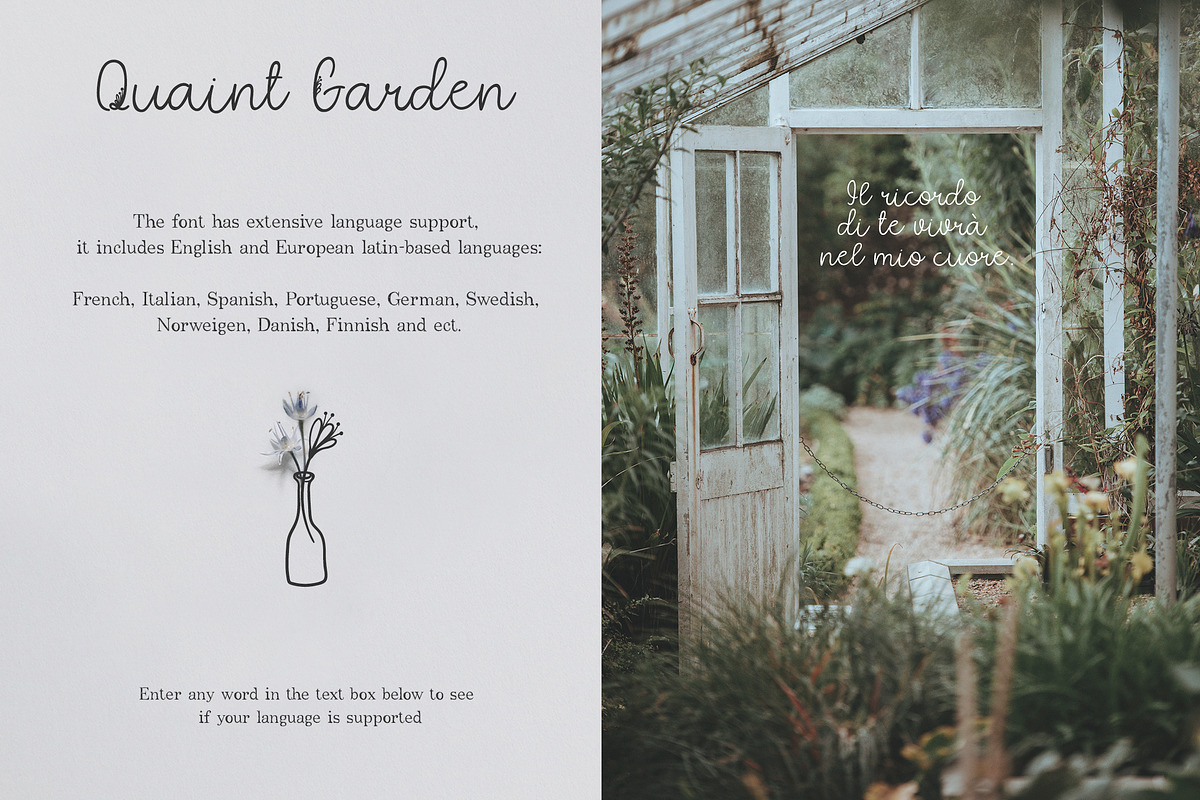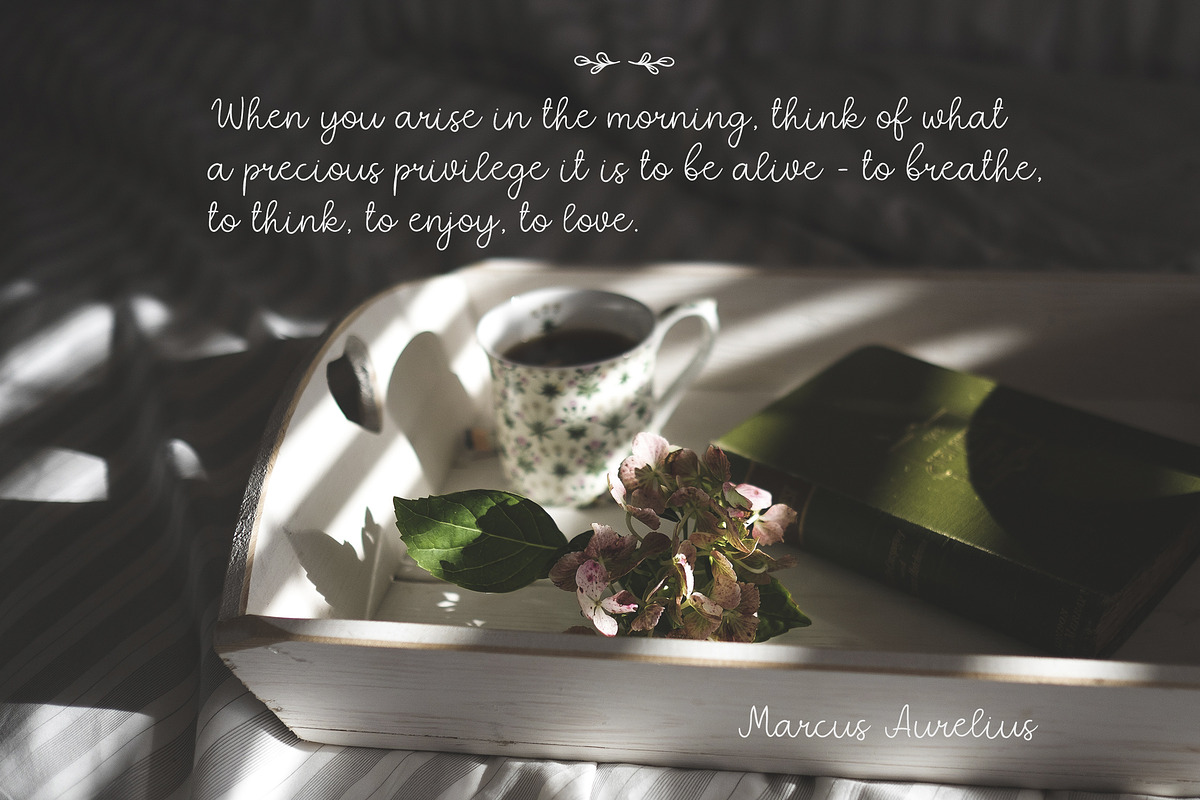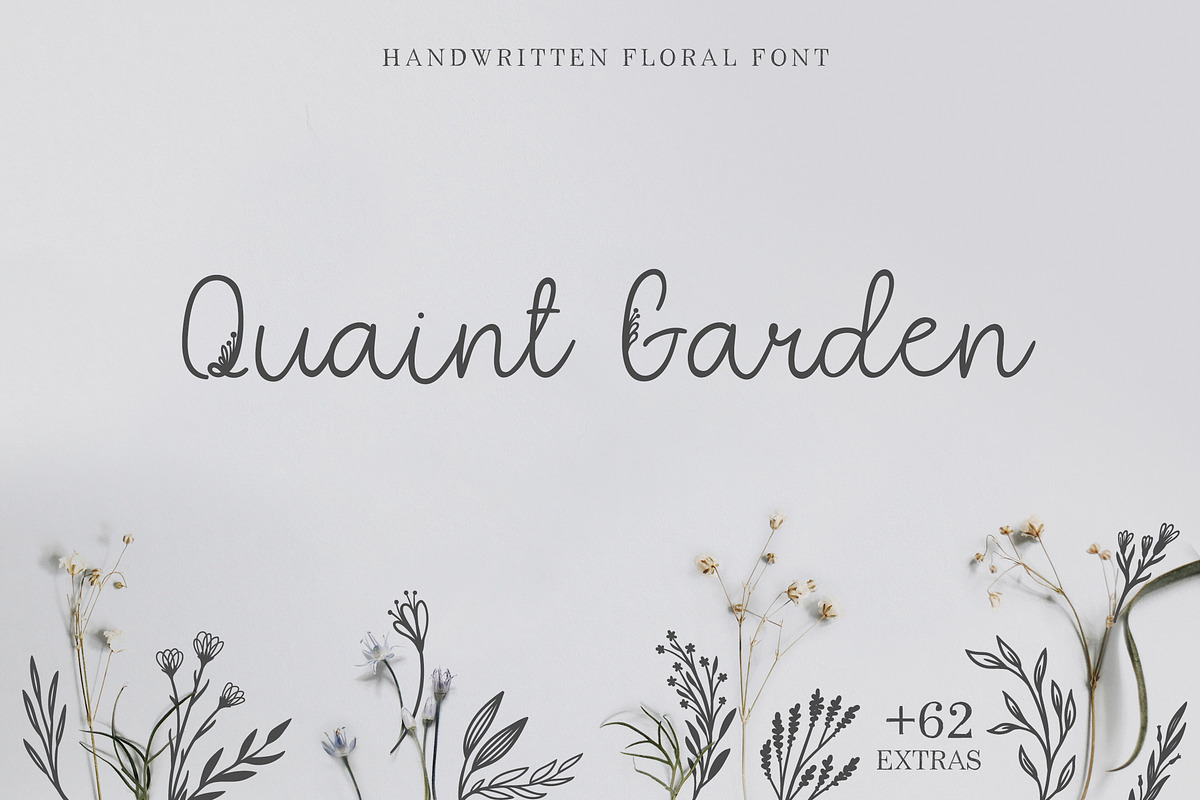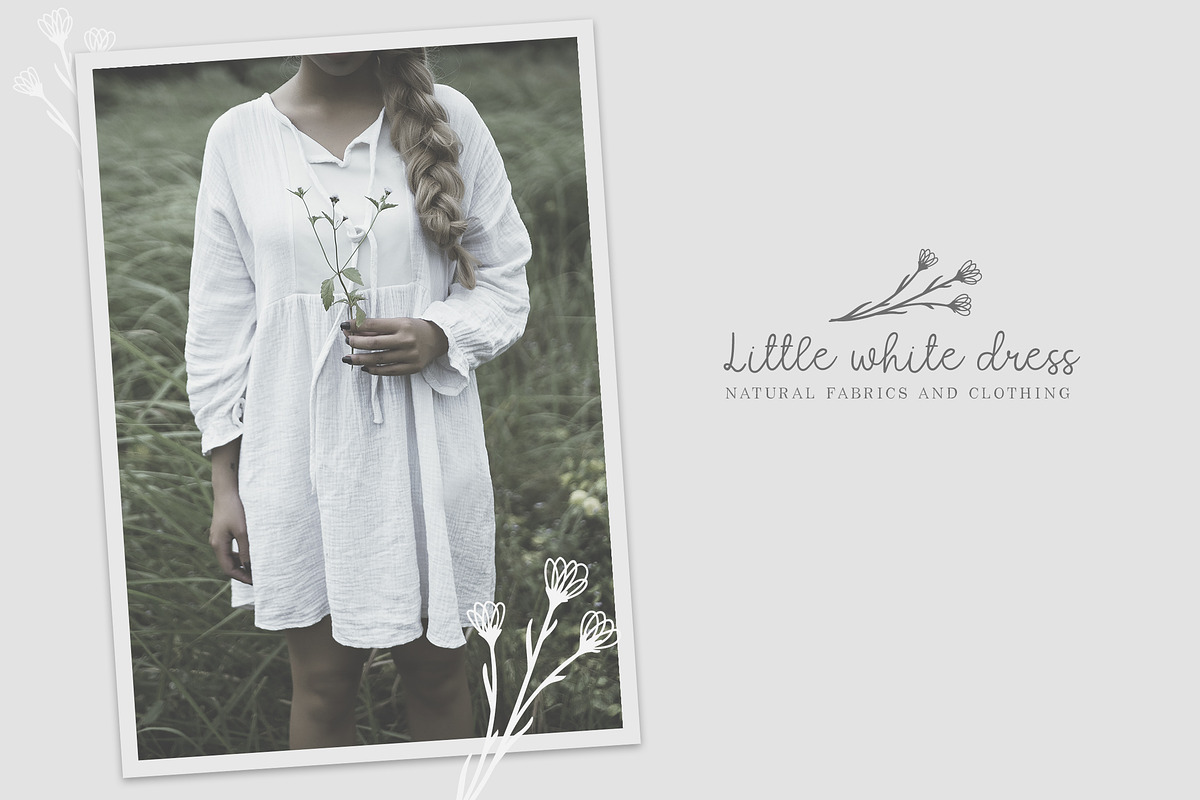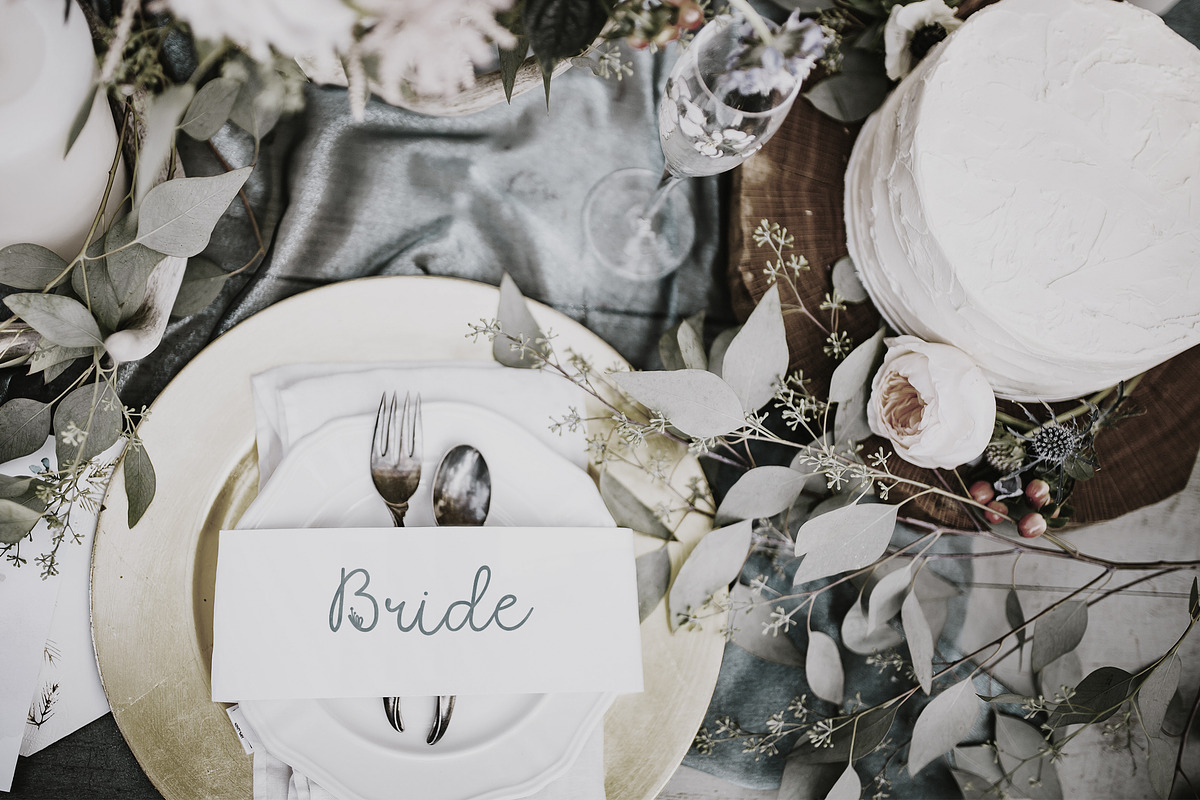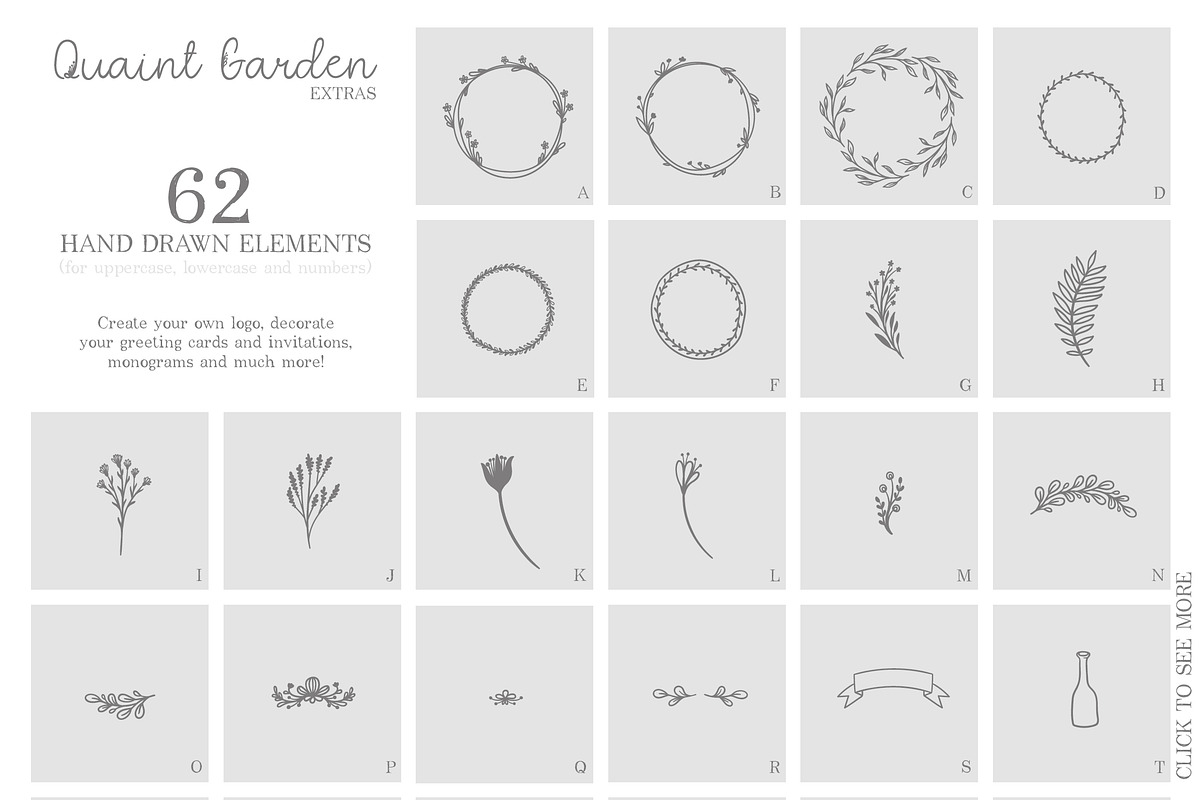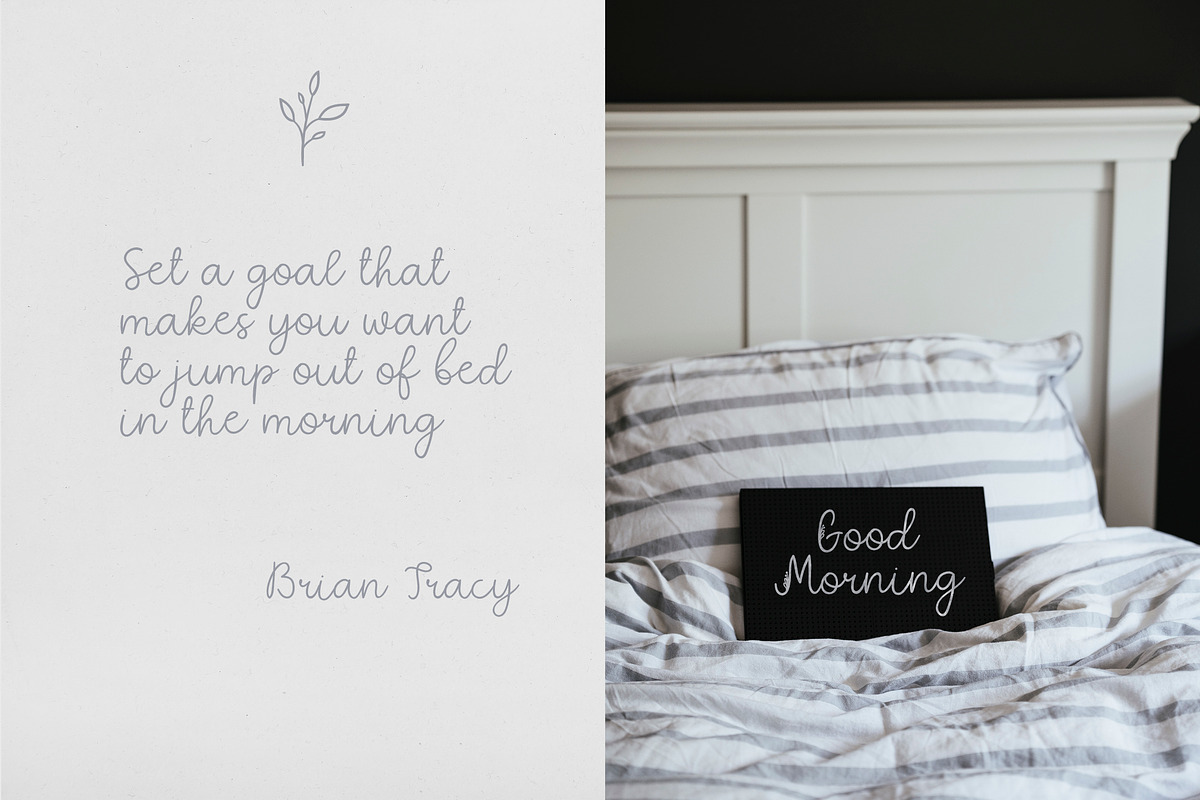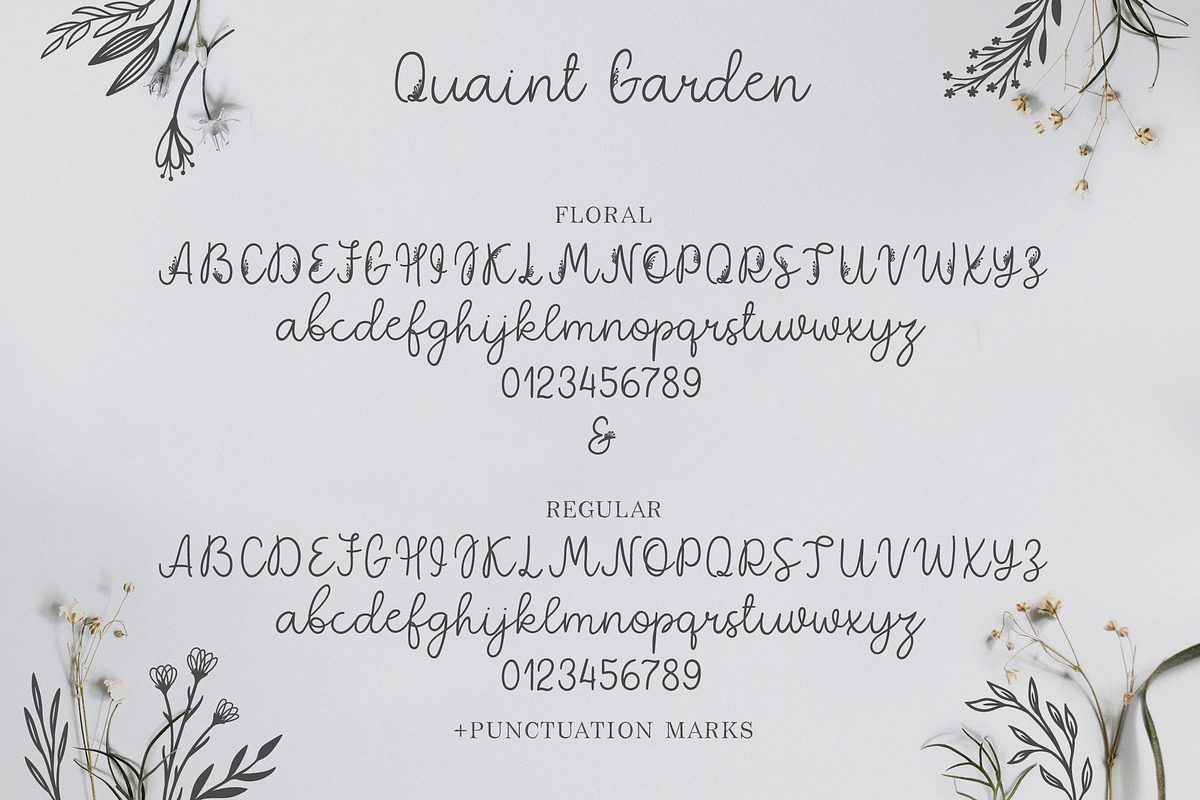
Quaint Garden Floral Font +EXTRAS
I’m pleased to introduce my new handwritten floral font Quaint Garden.
Quaint Garden comes in three styles: Floral, Regular and Extras.
Quaint Garden Floral is a smooth, decorative font. Floral uppercase letters are ideal for your wedding monograms and logos. Use this font for invitations, branding, packaging, magazines, florist shops, social media, restaurant menu, greeting cards, headers and many more.
Quaint Garden Regular is a modern calligraphy font. It's perfect for design projects, instagram, invitations, signatures, watermarks, logos, letterpress address, titles, birthday invitations, handwriting and more.
Quaint Garden Extras is a symbol font (includes 62 hand drawn botanical elements). You can use these characters either separately or in combination with Quaint Garden Regular and Quaint Garden Floral (or any other fonts). The symbols are perfect for creating your own logo, greeting cards, photo overlays, scrapbooking, writing letters and just for fun :)
The font has extensive language support, it includes English and European latin-based languages: French, Italian, Spanish, Portuguese, German, Swedish, Norweigen, Danish, Finnish and other.